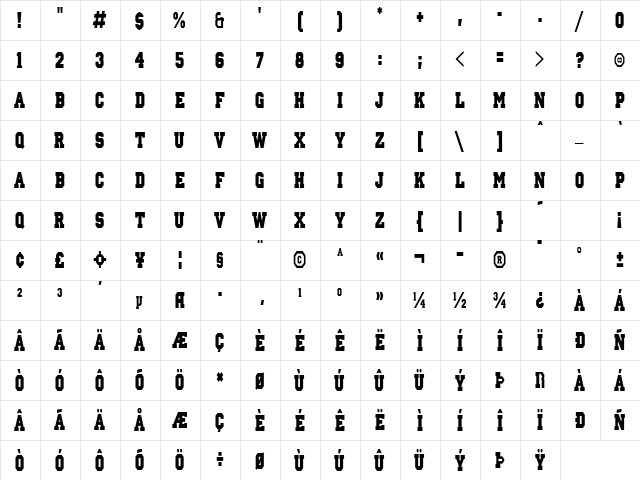
IvyLeagueCondensedSolid Regular
Design Context for IvyLeagueCondensedSolid Typeface
IvyLeagueCondensedSolid is a composed and adaptable typeface that performs quietly and consistently across a wide range of design contexts. Its narrow stance lets it pack a punch even in space-constrained designs.